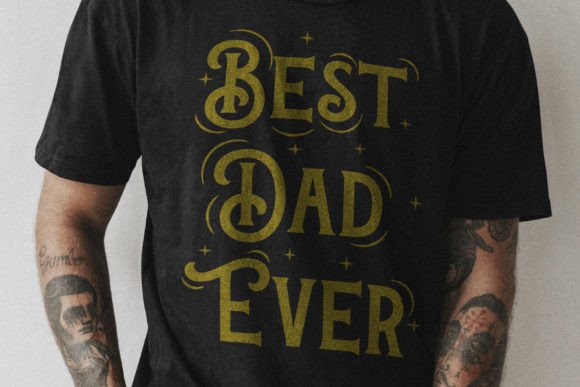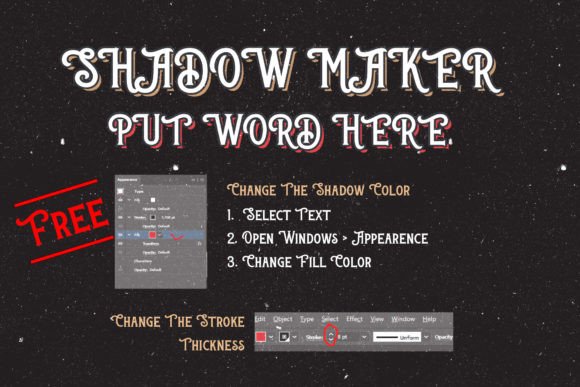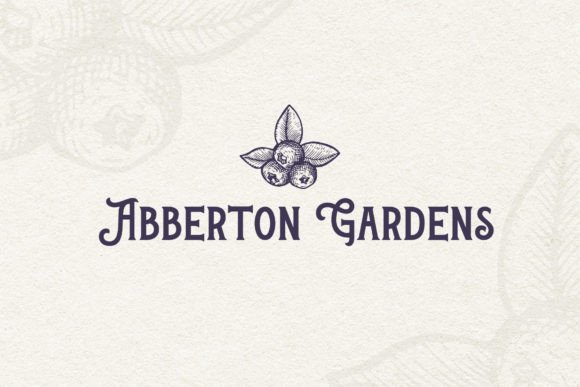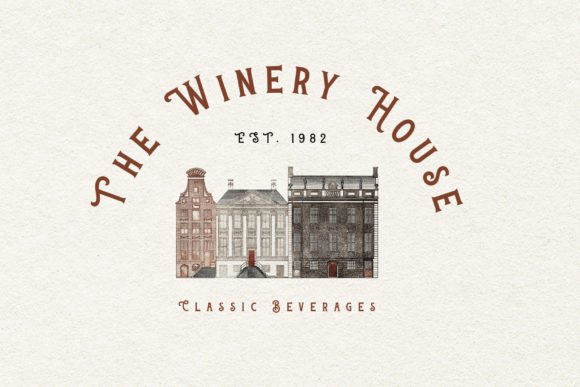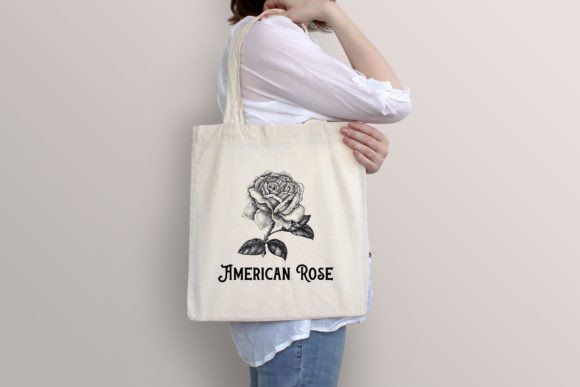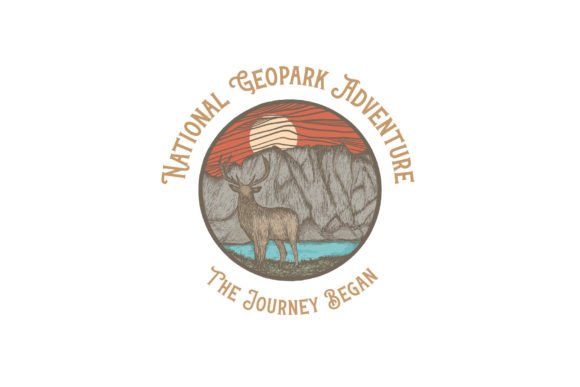
Introduction to Honey Brew Font
Honey Brew is a classic, vintage-style display font.
This font reads as strong, confident, and dynamic and can add tons of nostalgic character to your designs .